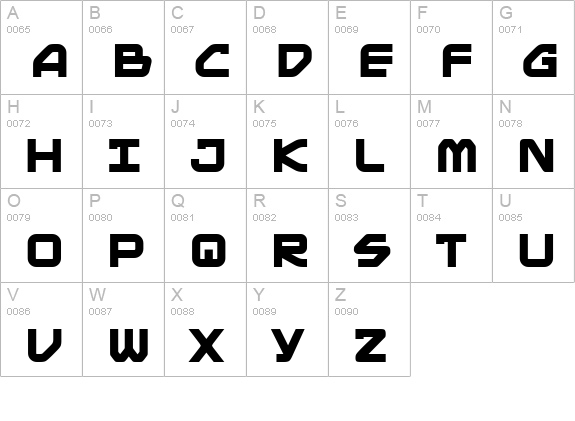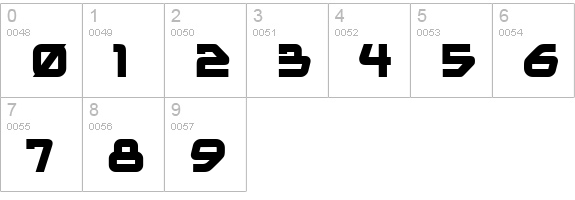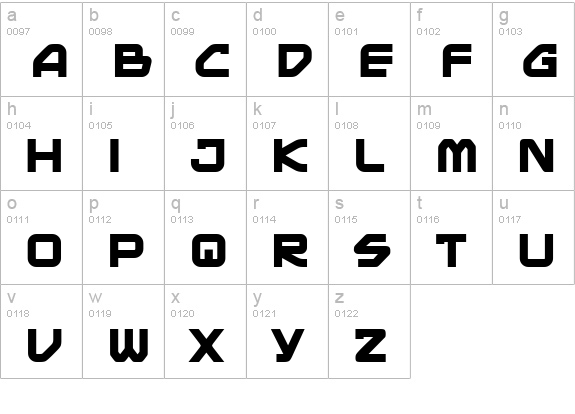
Mainframe BB Bold Font Details
Mainframe BB Bold is a strong, high-contrast variant in the Mainframe typeface family \xE2\x80\x94 well suited to headlines, attention-grabbing titles, and strong calls-to-action.
Mainframe BB Bold font is a stunning and bold typeface that is perfect for making a statement. It exudes confidence and attracts attention with its strong and commanding presence. The thick, block-like letterforms give a sense of power and authority, making it ideal for headlines, titles, and logos. With its modern and futuristic design, Mainframe BB Bold font is a versatile choice for a wide range of projects. Whether you are working on a technology-related website, a video game interface, or a science fiction book cover, this font will add a touch of professionalism and sophistication. The unique and eye-catching nature of Mainframe BB Bold font sets it apart from other fonts, making it a great choice for designers who want to make their work stand out. Its sleek and angular letterforms create a sense of movement and energy, adding dynamism to any design. One of the best things about Mainframe BB Bold font is that it is freely available to download at FontsMarket.com. This means that you can easily access and use this font without any hassle or cost. Whether you are a professional designer or a hobbyist, having access to high-quality fonts like Mainframe BB Bold font can greatly enhance your creative projects. So, if you are looking for a bold and impactful font that will make a lasting impression, look no further than Mainframe BB Bold font. Download it for free at FontsMarket.com and let your designs shine with its powerful and captivating aesthetic.